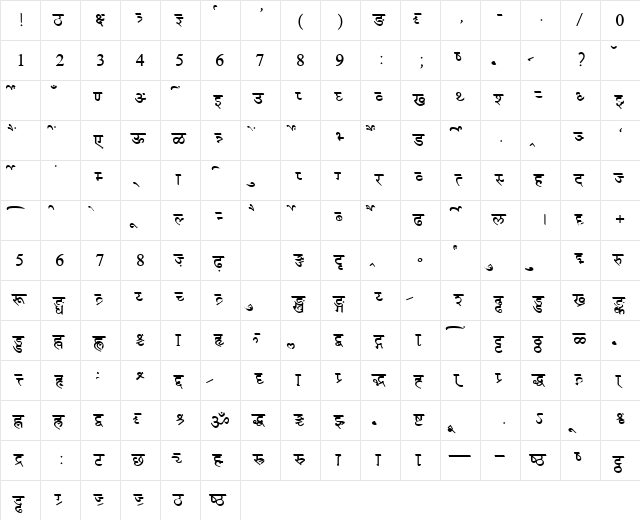
AkrutiDevPriyanka Normal Font Preview
AkrutiDevPriyanka Normal
Design Context for AkrutiDevPriyanka Typeface
AkrutiDevPriyanka is a composed and adaptable typeface that performs quietly and consistently across a wide range of design contexts.